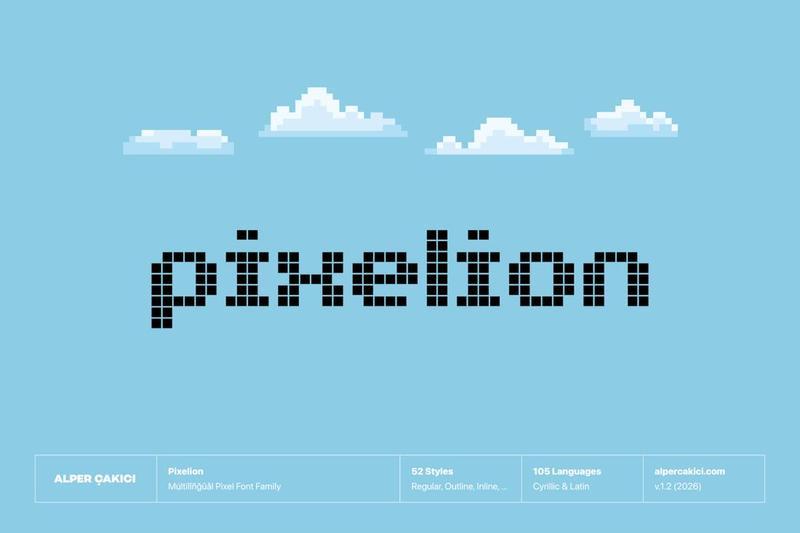
Pixelion – Multilingual Pixel Font Family CXW2X93
**Pixelion** is a versatile **pixel-style typeface family** that reimagines bitmap aesthetics with a contemporary and highly expressive system. Built on a modular grid, Pixelion balances crisp geometric precision with a wide range of stylistic interpretations, making it suitable for both retro-inspired and modern digital design.
The family includes an **extensive selection of styles, from clean and functional cuts like Regular, Angular, and Rounded to highly decorative variants such as Outline, Inline, Pencil, Noise, Rimmed, and Rough**. Each style is carefully crafted to preserve legibility while introducing distinct texture and personality.
Pixelions **Circular** and **Rounded** subfamilies soften the traditional pixel look, offering a friendlier and more approachable tone, while **Angular styles** maintain a sharper, classic bitmap feel. **Eroded and Noise variants** add organic imperfections, perfect for projects that require a worn, experimental, or glitch-inspired aesthetic.
With full **support for over 100 languages**, Pixelion is designed for global use, making it a powerful choice for branding, user interfaces, games, posters, and digital experiences.
Whether you’re creating retro game graphics, futuristic interfaces, or bold typographic statements, Pixelion delivers flexibility, character, and a cohesive visual system across all its styles.